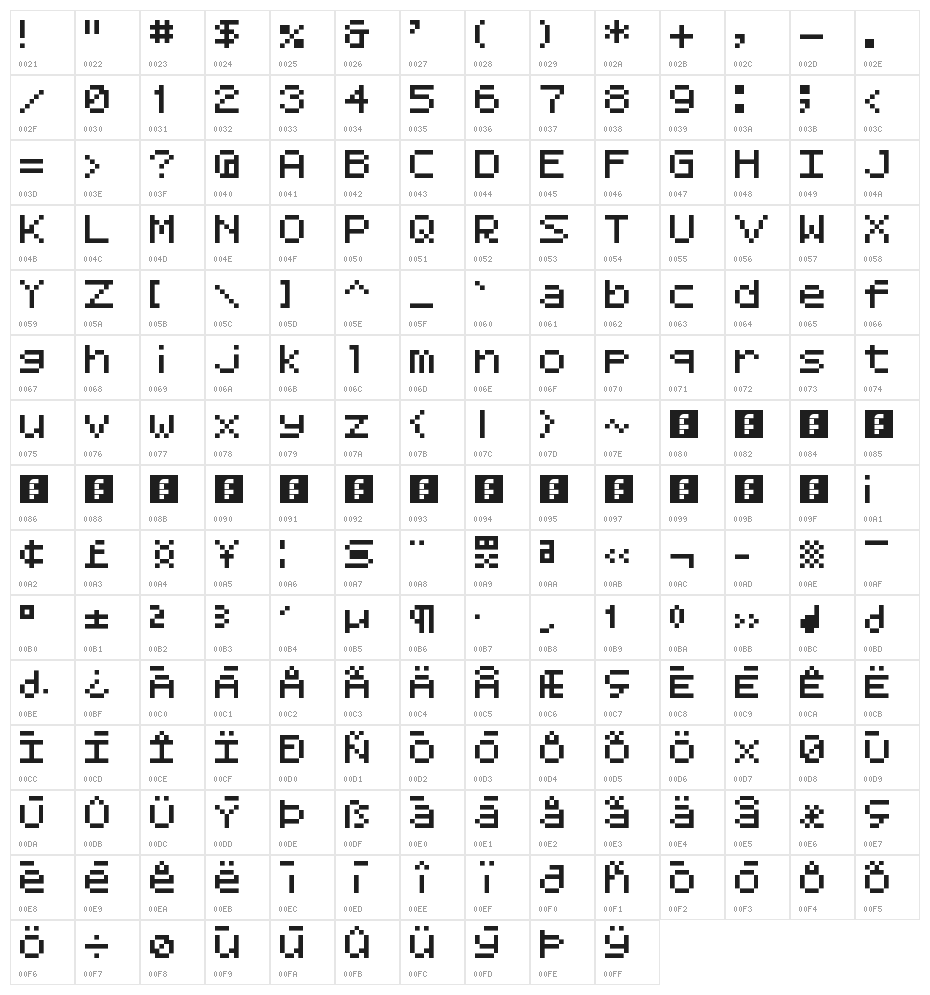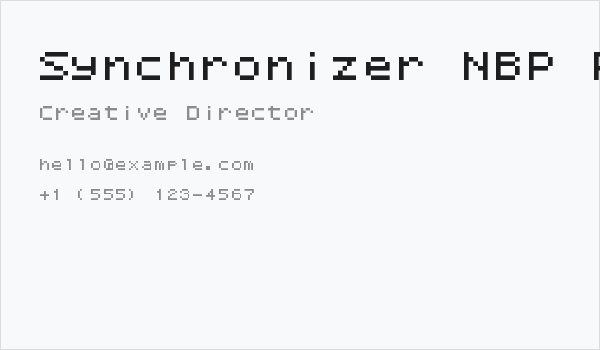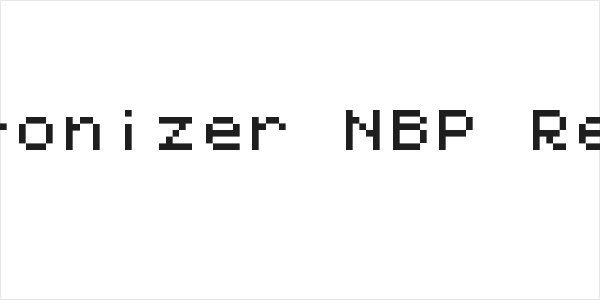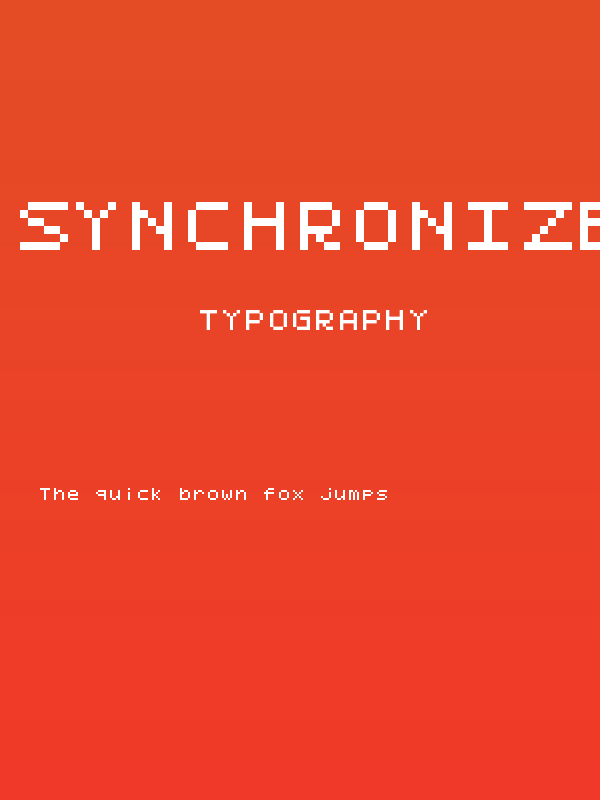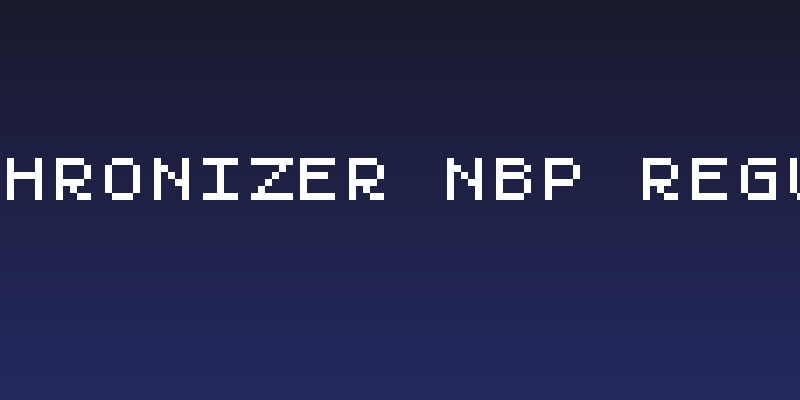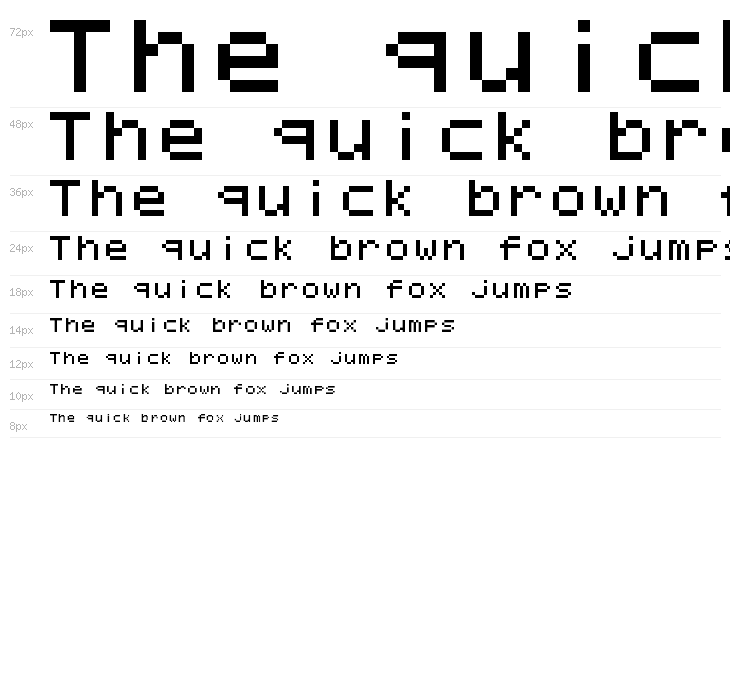
Synchronizer NBP Regular Font
Synchronizer NBP Regular Description
This font features a pixelated, blocky design reminiscent of early digital displays and retro video games. Each character is constructed with a uniform grid-like structure, giving it a distinctly digital and geometric appearance. The uppercase and lowercase letters maintain a consistent height and width, contributing to a monospaced feel. The numerals and special characters follow the same design principles, ensuring uniformity across all glyphs. The font's simplicity and clarity make it highly legible, even at smaller sizes, while its nostalgic style evokes a sense of vintage computing.
| Use Case | Logos, Digital displays, Retro-themed projects |
| Proposed Projects | Ideal for retro-themed designs, video game graphics, digital art projects, and any creative work that seeks to evoke nostalgia for early computing. |